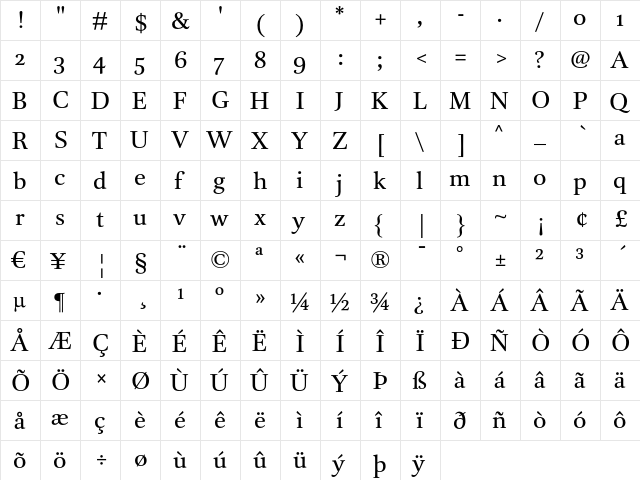
DTLUnicoST Regular
| Foundry | Dutch Type Library |
| Designer | Michael Harvey |
Design Context for DTLUnicoST Typeface
DTLUnicoST takes a measured approach to typography — its balanced proportions and neutral character make it a reliable workhorse for both digital and print work.